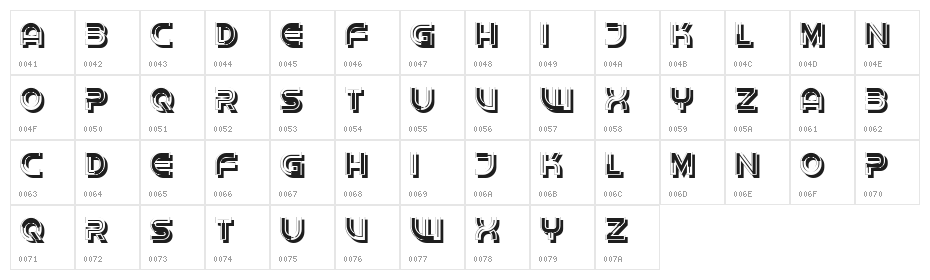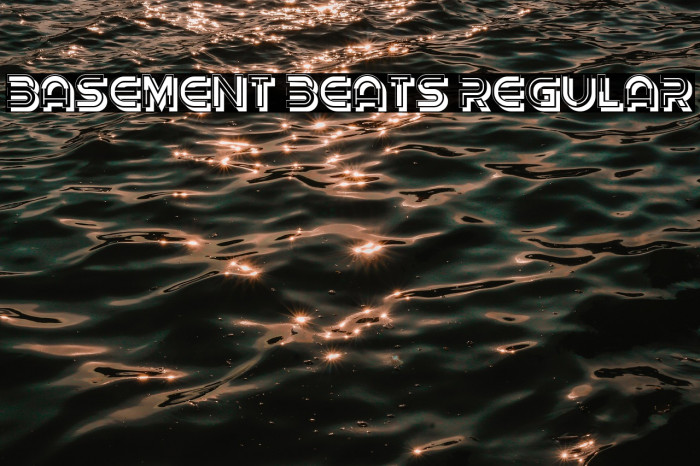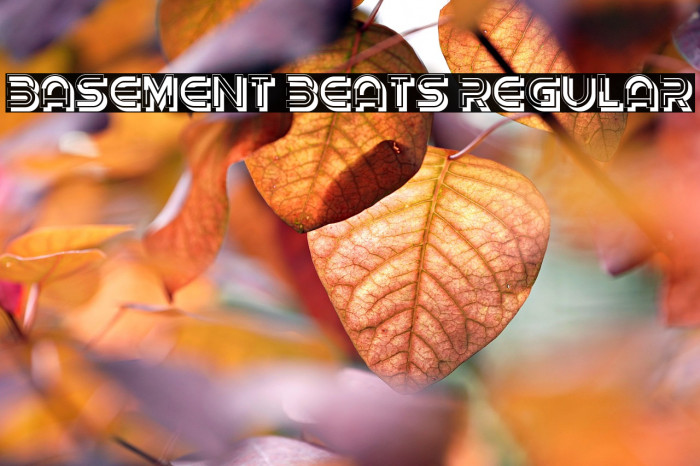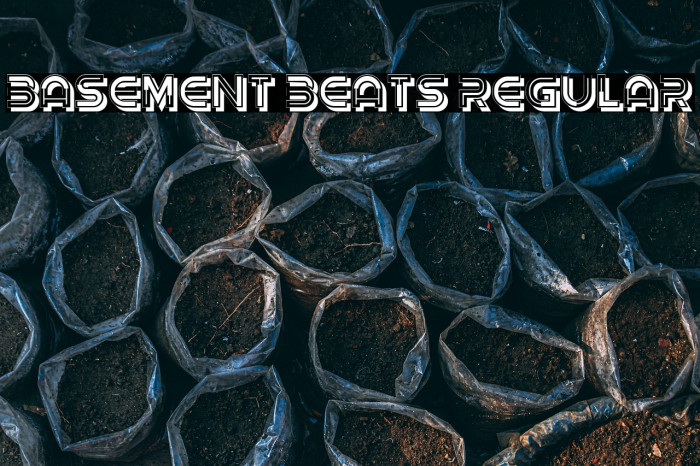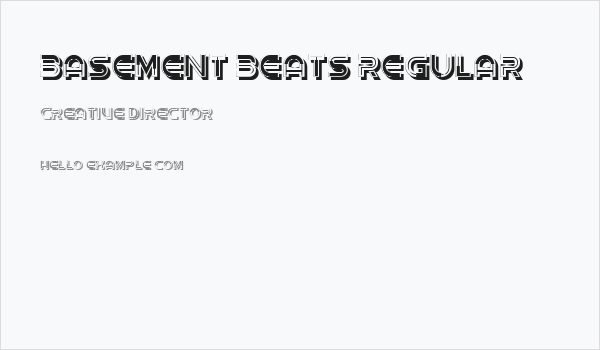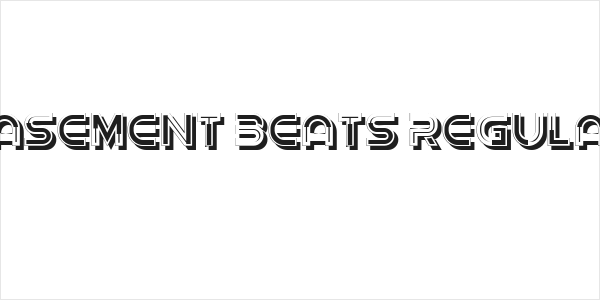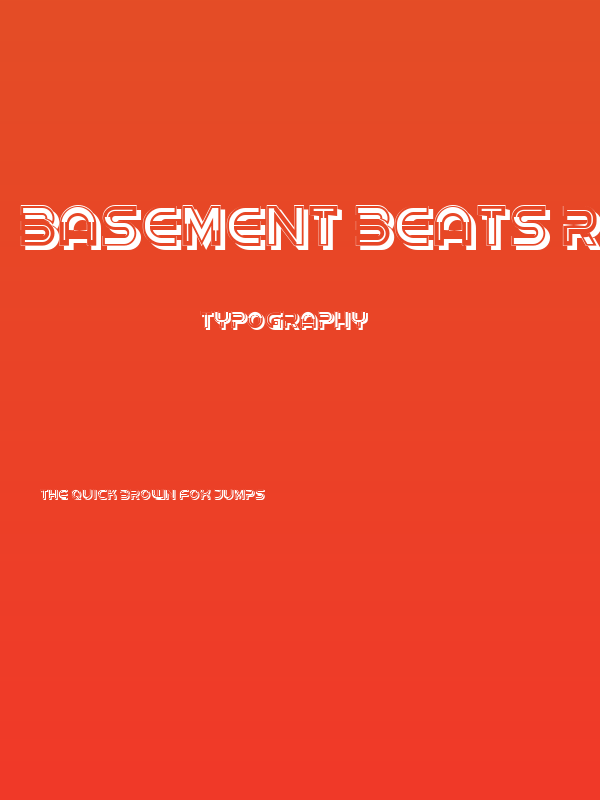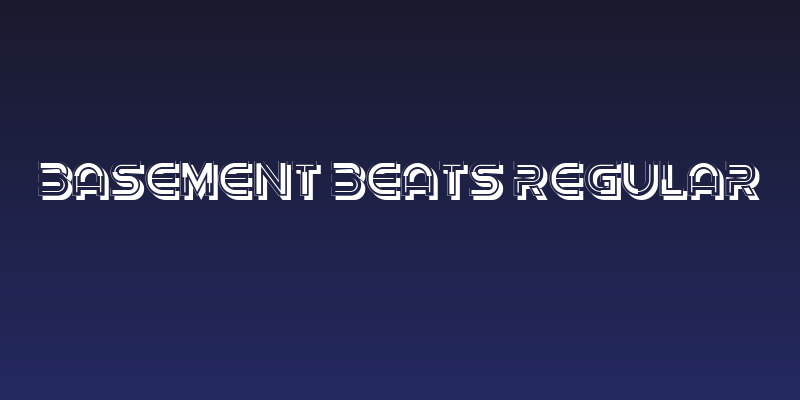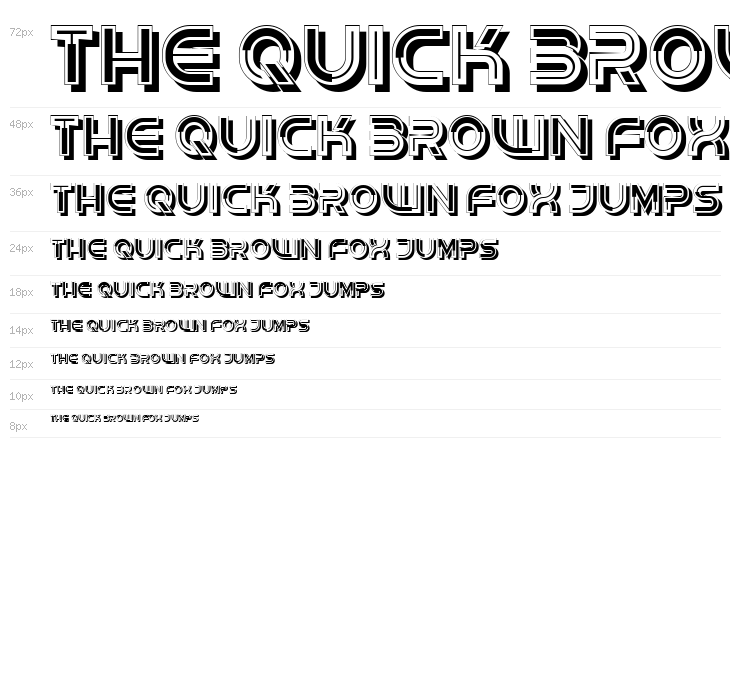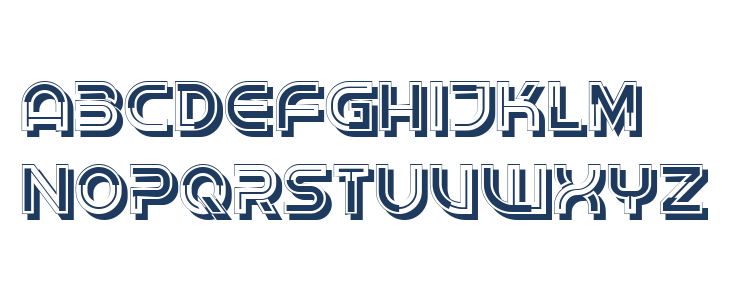
Basement Beats Regular Font
Basement Beats Regular Description
This font features a bold, geometric design with a distinct three-dimensional effect. The characters are constructed with sharp angles and clean lines, giving them a futuristic and dynamic appearance. The layered design creates a shadow effect, adding depth and visual interest. The uppercase letters are uniform in height, contributing to a cohesive and structured look. This font is highly stylized, making it ideal for projects that require a modern and eye-catching typeface.
| Proposed Projects | Ideal for music album covers, event posters, video game titles, and branding for tech companies. |